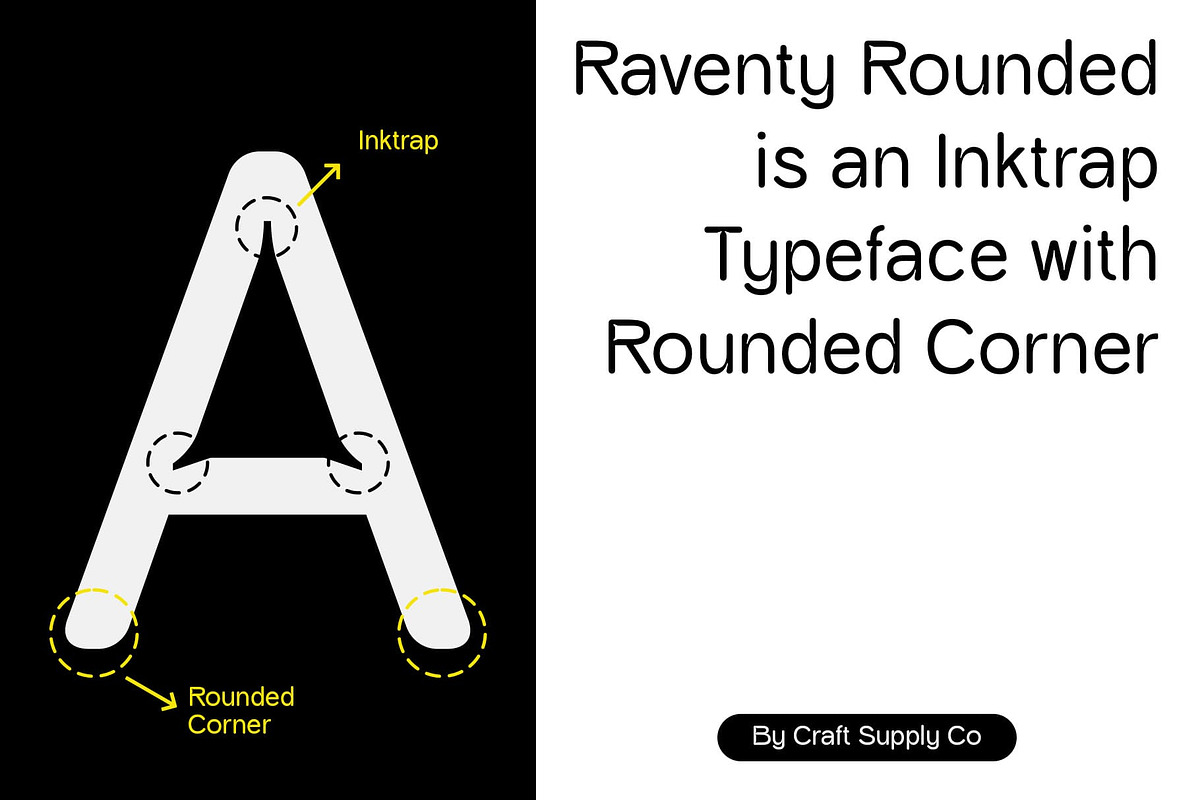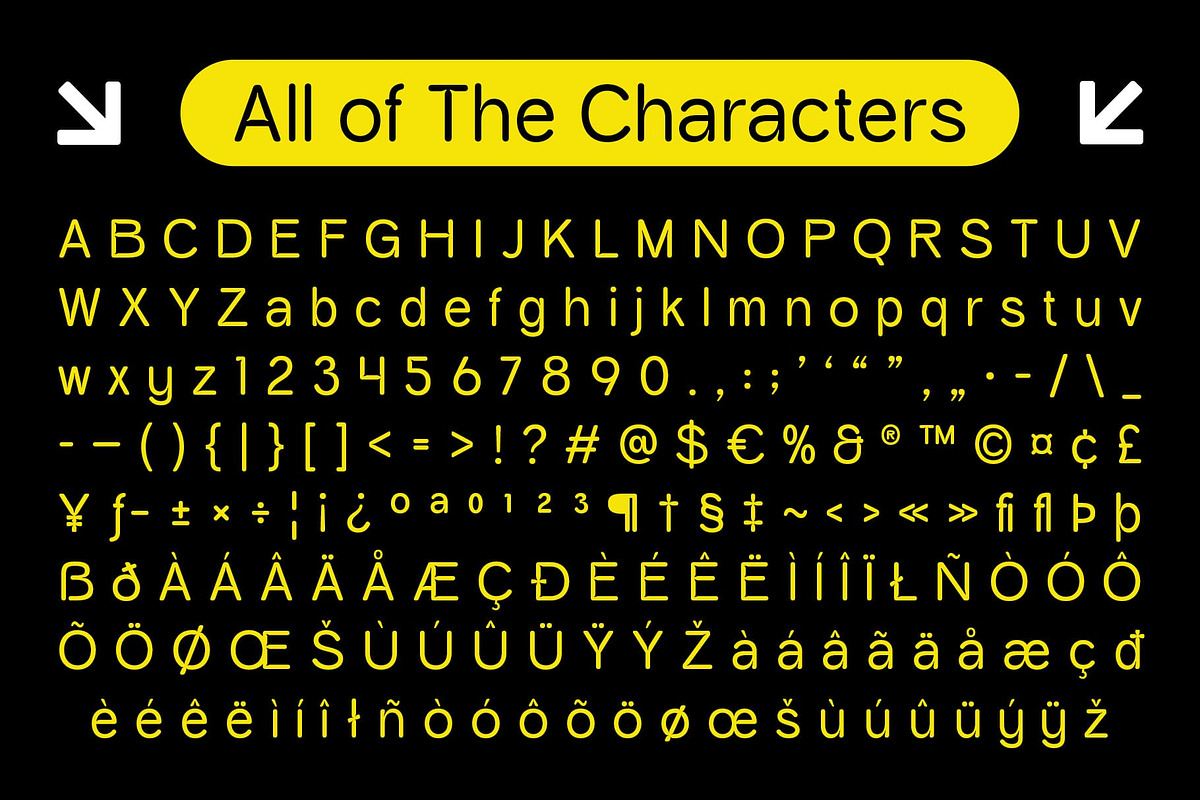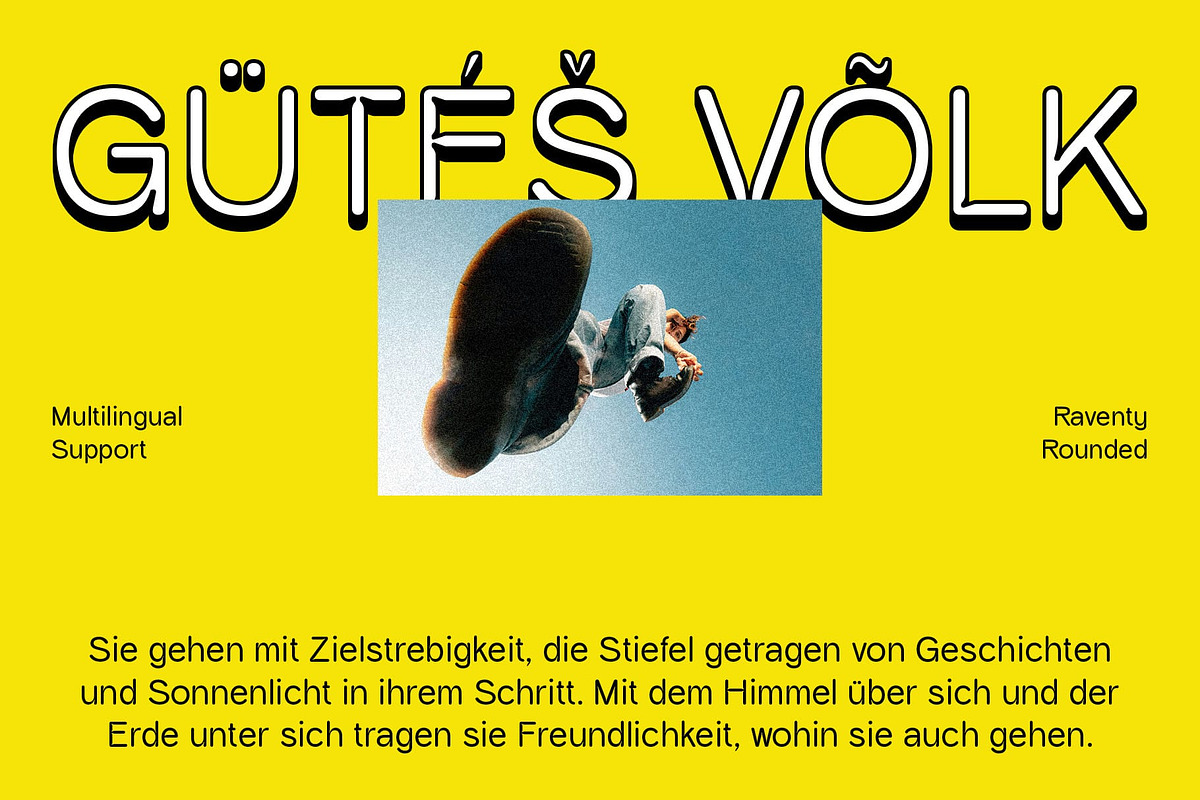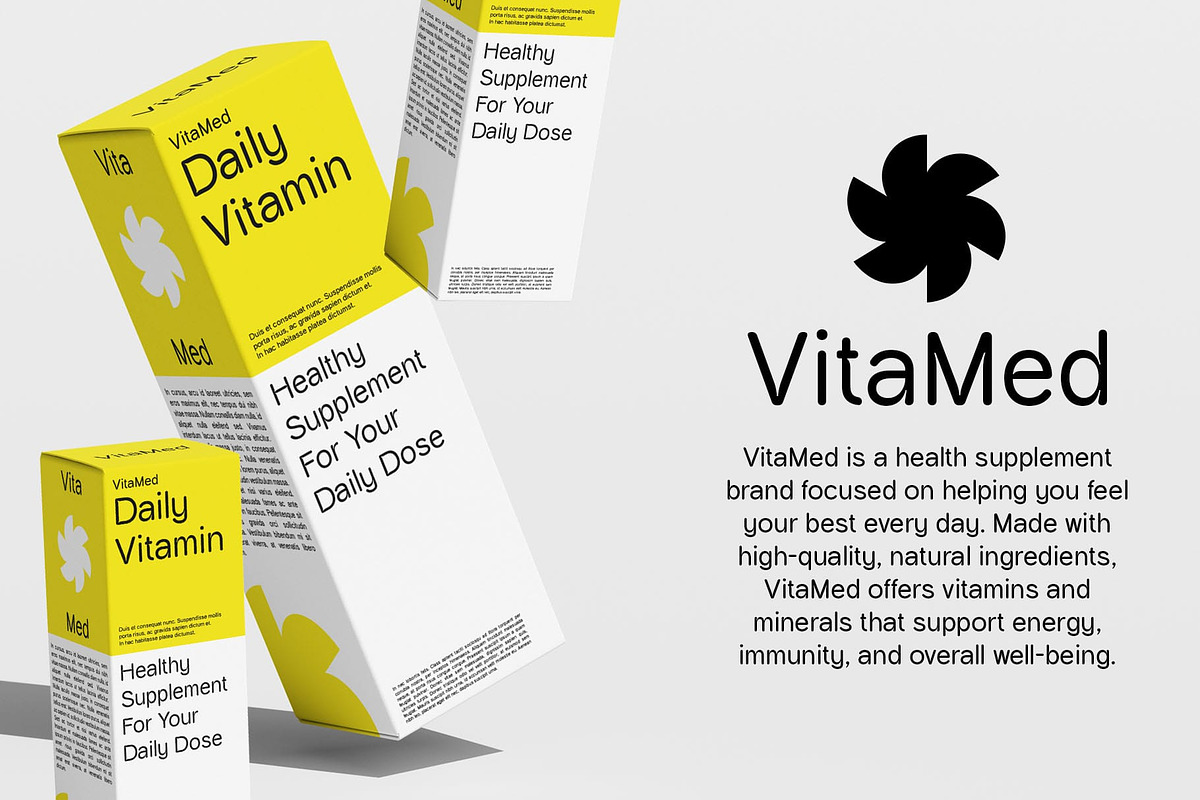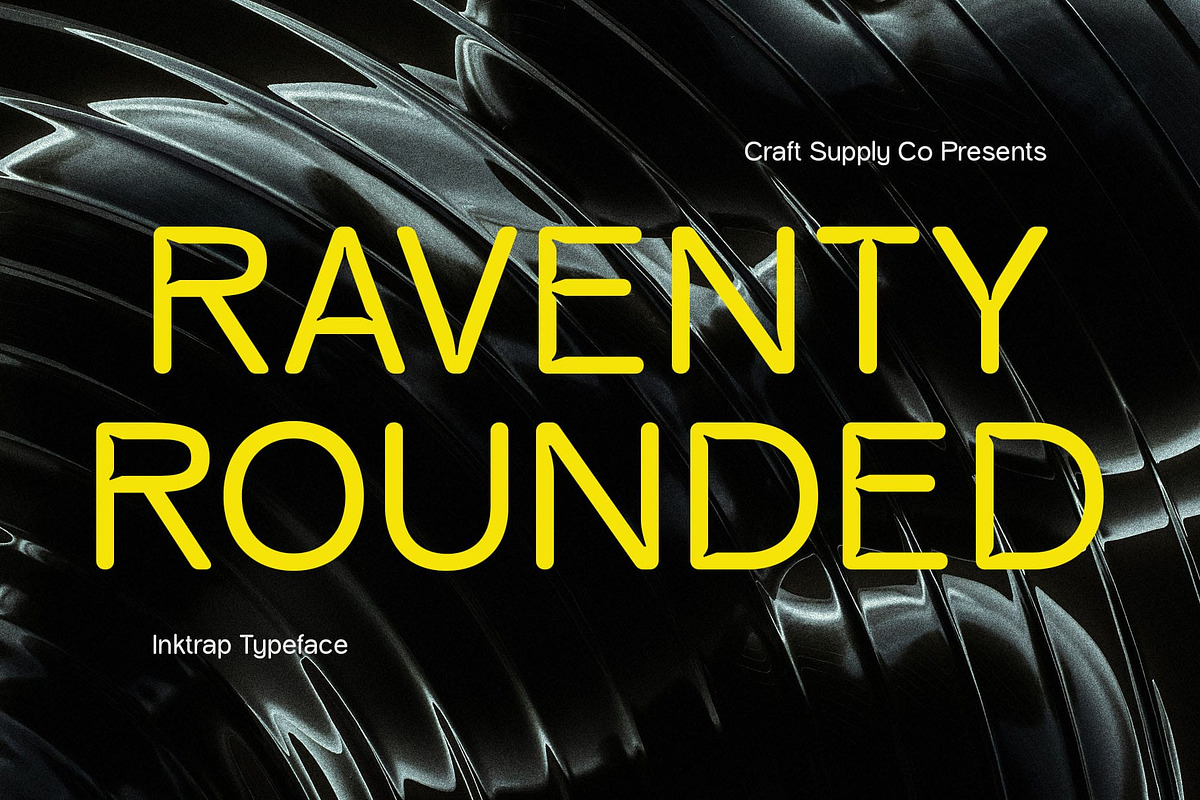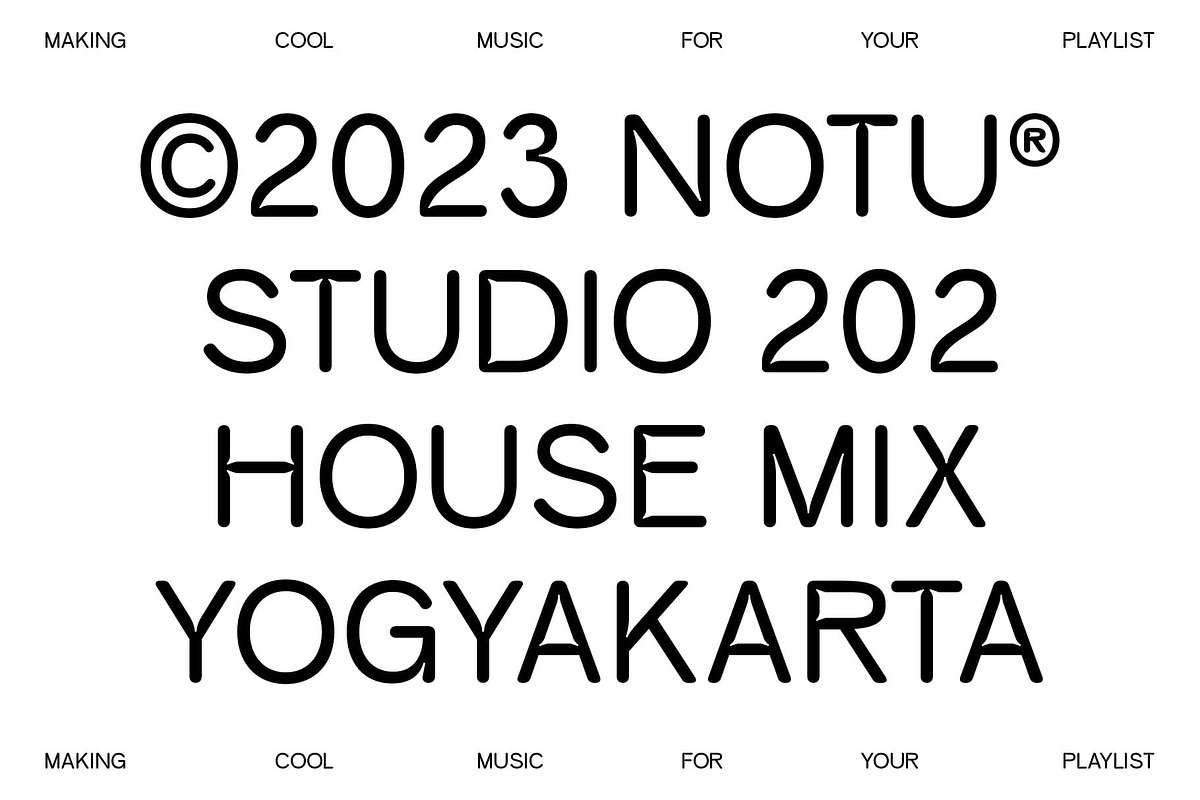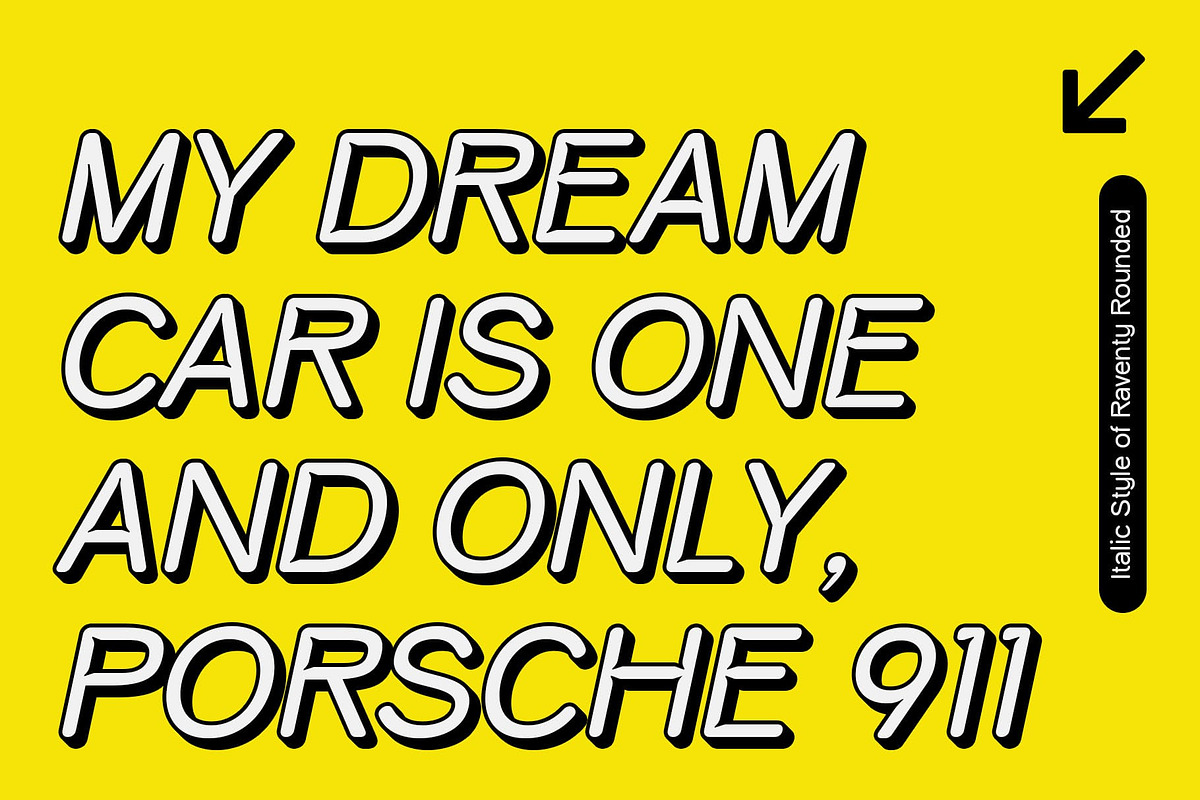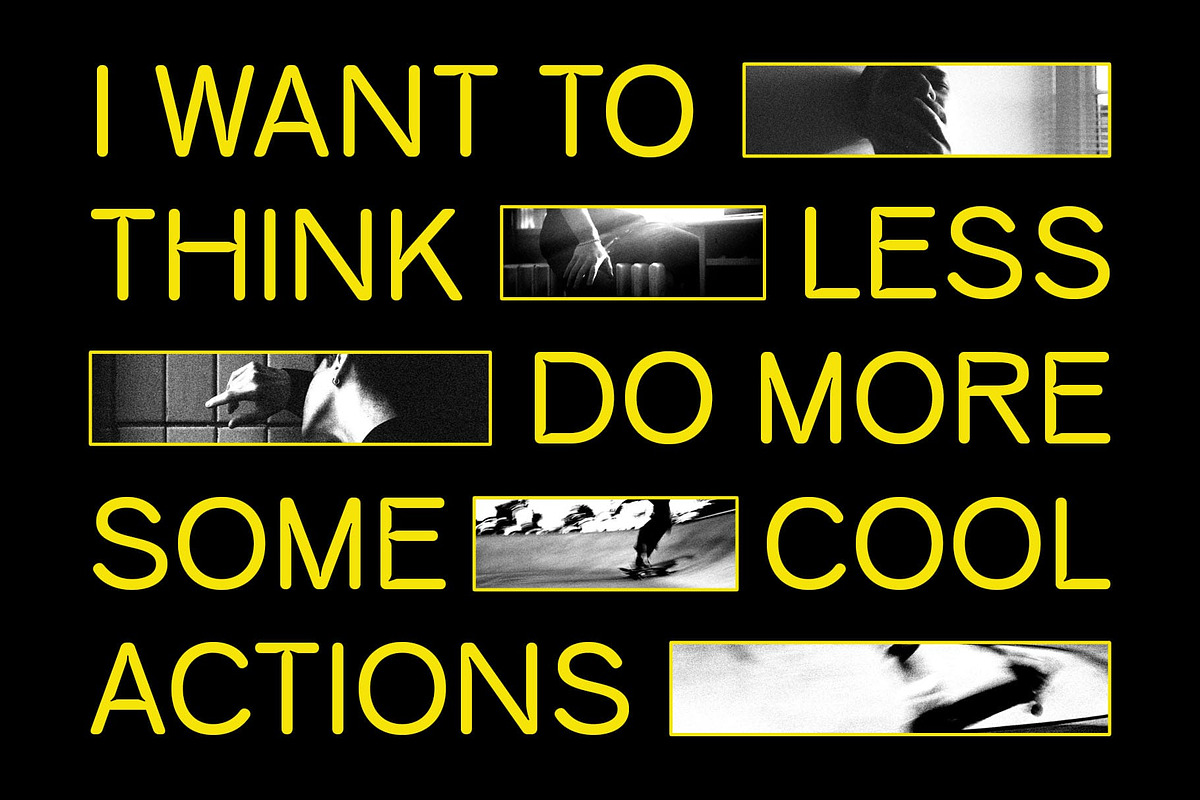
Raventy Rounded
Raventy Rounded Font – Where Clarity Meets Warmth in Modern Typography
Modern Slim Sans Serif with Soft Geometry Raventy Rounded is a modern sans serif font with a clean, slim structure that radiates contemporary minimalism. Its streamlined letterforms are crafted for efficiency and elegance, making it a great choice for designs that require a neat and refined typographic presence without sacrificing personality.
Inktrap Features for Functional Clarity Designed with inktrap details—precise cutouts at letter joins—Raventy Rounded improves legibility, especially at small sizes and in print. These subtle technical features aren’t just functional; they also contribute to the font’s high-tech and structured appearance, offering a nod to both traditional typesetting precision and modern digital design needs.
Rounded Terminals for Friendly Aesthetic What softens Raventy’s modern edge is its rounded terminals, which add a welcoming and humanistic tone. This gentle curve balances the sleek geometry of its base structure, giving it a versatile personality—both professional and approachable. It’s the perfect typographic solution for interfaces, branding, or content that needs to feel trustworthy and engaging.
Ideal for Digital Interfaces and Creative Branding From UI design and app interfaces to modern branding systems, creative portfolios, or even tech-driven product packaging, Raventy Rounded offers a balanced visual tone—minimalist yet warm, precise yet personal. It’s especially useful in environments where readability, friendliness, and modern aesthetics must work hand-in-hand.